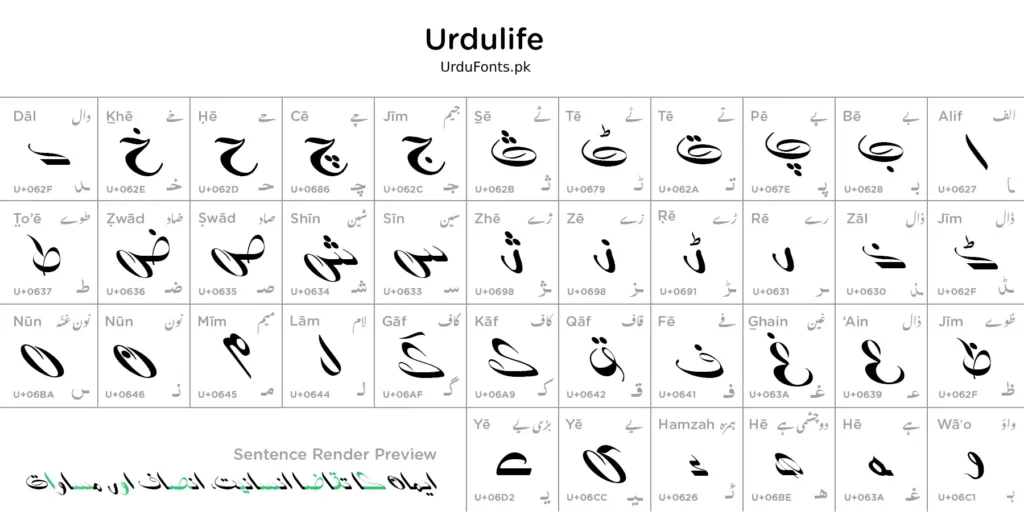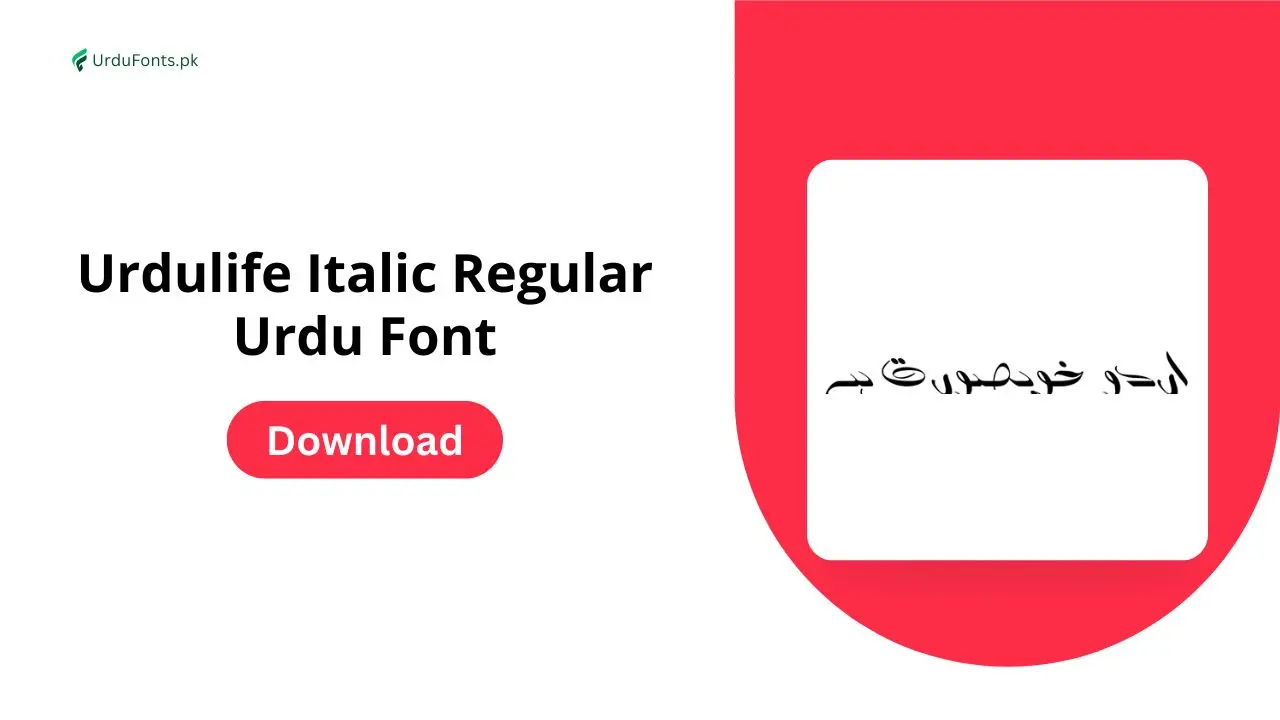
Urdulife Italic Regular brings a fresh perspective to Urdu typography, offering an elegant slanted design that stands out in the world of digital fonts. This article explores the unique characteristics of this font, its applications, and how to obtain it for your creative projects.
What is Urdulife Italic Regular?
Urdulife Italic Regular is a stylish Urdu typeface that combines the grace of italic design with the traditional beauty of Urdu script. It offers a distinctive slant that adds emphasis and movement to Urdu text while maintaining readability.
Urdulife Italic Regular is designed to work seamlessly across various design software and platforms. Its careful engineering ensures consistent rendering on different devices, making it suitable for both digital and print projects.
As the digital landscape continues to evolve, fonts like Urdulife Italic Regular play a crucial role in keeping Urdu typography fresh and relevant. Whether you’re working on a branding project, developing educational materials, or creating content for social media, this font provides the perfect blend of tradition and modernity to make your Urdu text stand out.
Key Features
- Balanced slant for improved readability
- Smooth transitions between characters
- Suitable for both digital and print media
- Comprehensive character set for Urdu language needs